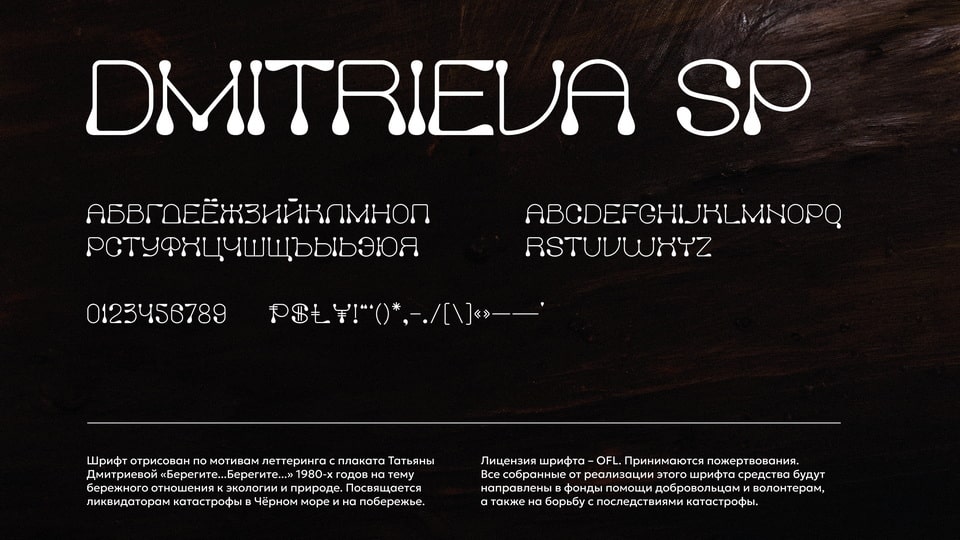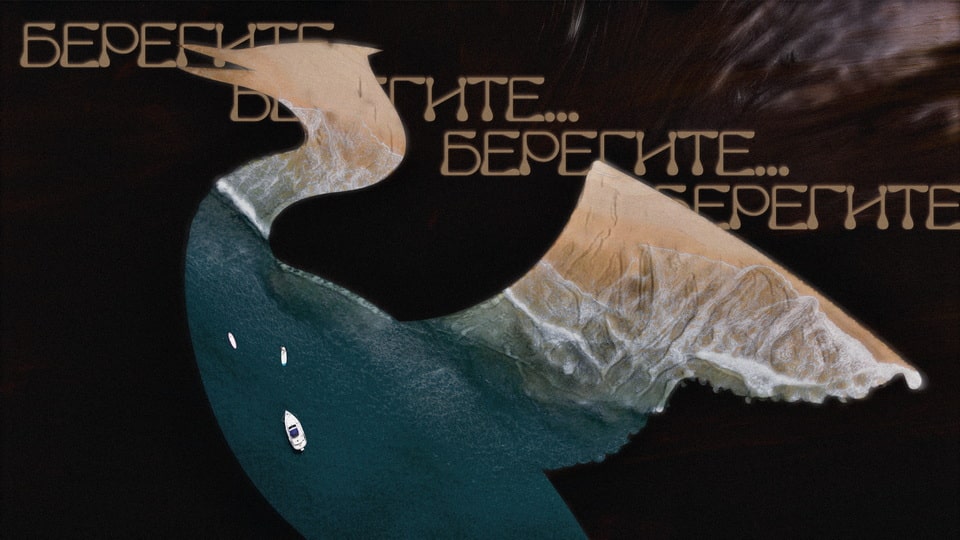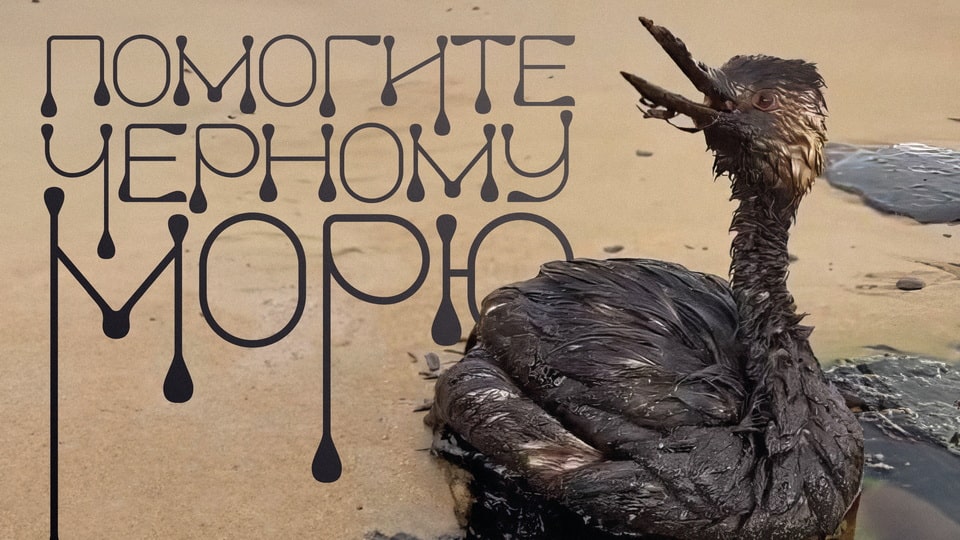
Dimitrieva SP
Dmitrieva SP is a decorative display font by Sasha Pavljenko, released under the SIL Open Font License 1.1. It uses rounded, tubular letterforms with narrow counters, soft curves, and teardrop-like stroke endings. The alphabet has an upright, all-caps rhythm, while lowercase characters stay close to uppercase shapes rather than forming a separate text style. Low-contrast strokes and occasional stencil-like breaks give the typeface a hand-drawn poster character with a retro Soviet-era mood. Its open spacing suits short headings, cultural graphics, environmental themes, labels, and compact editorial display settings more than long text.